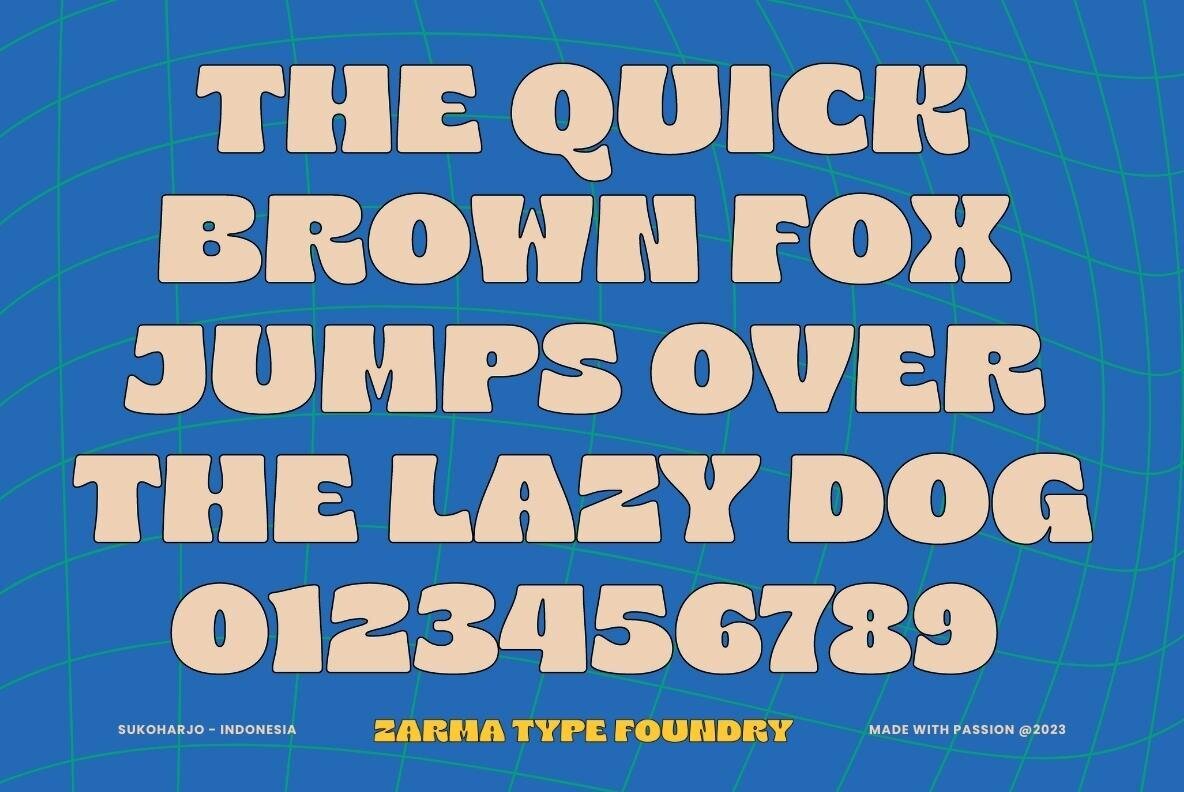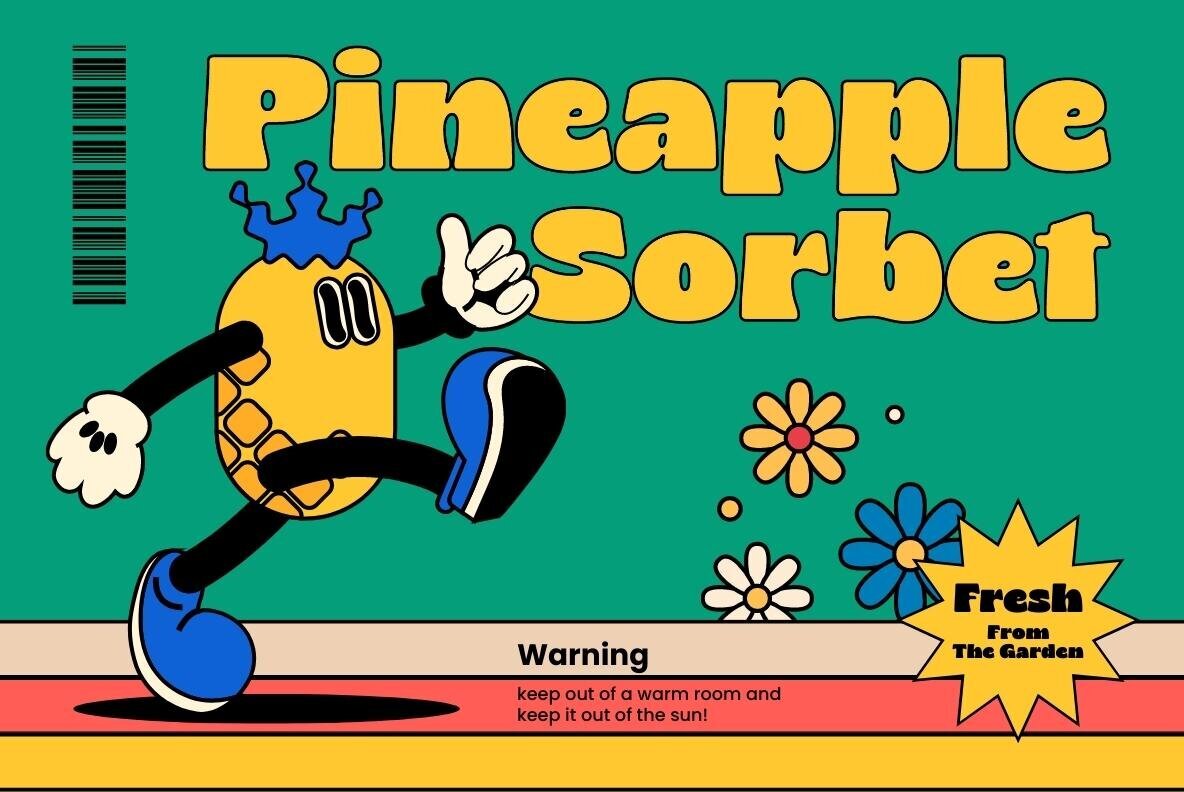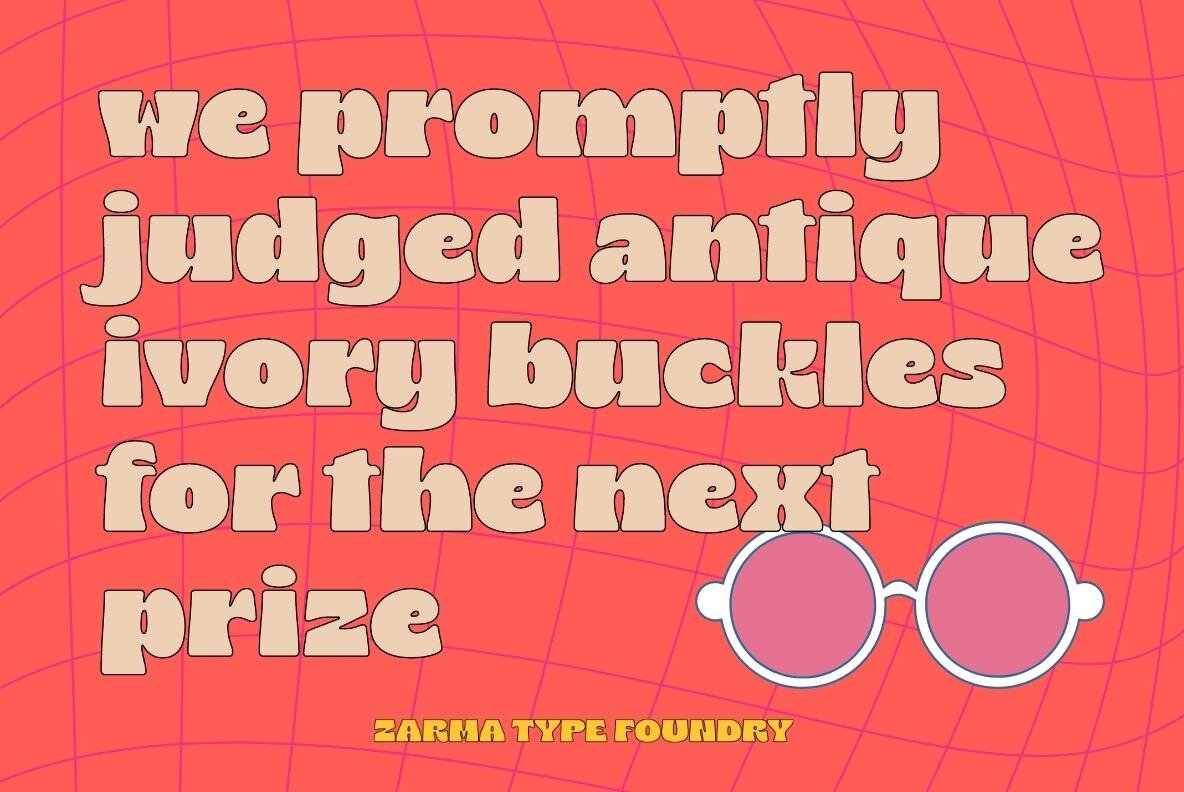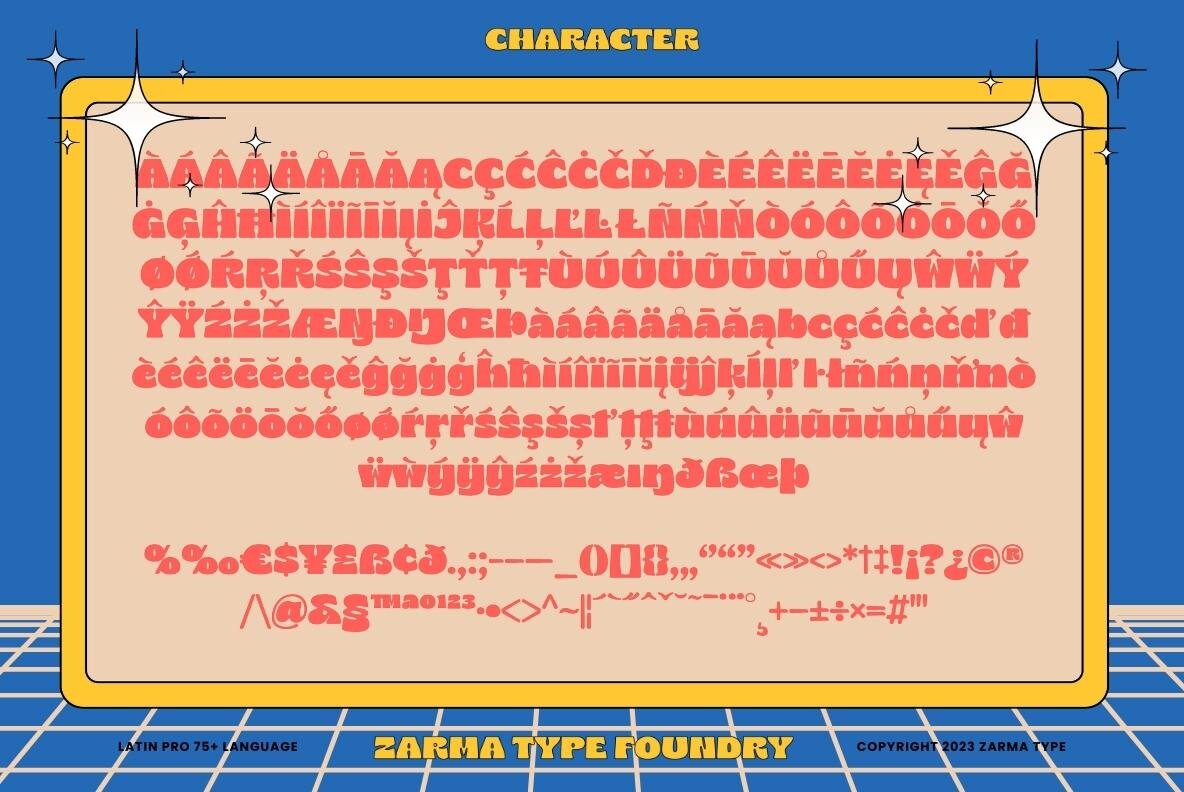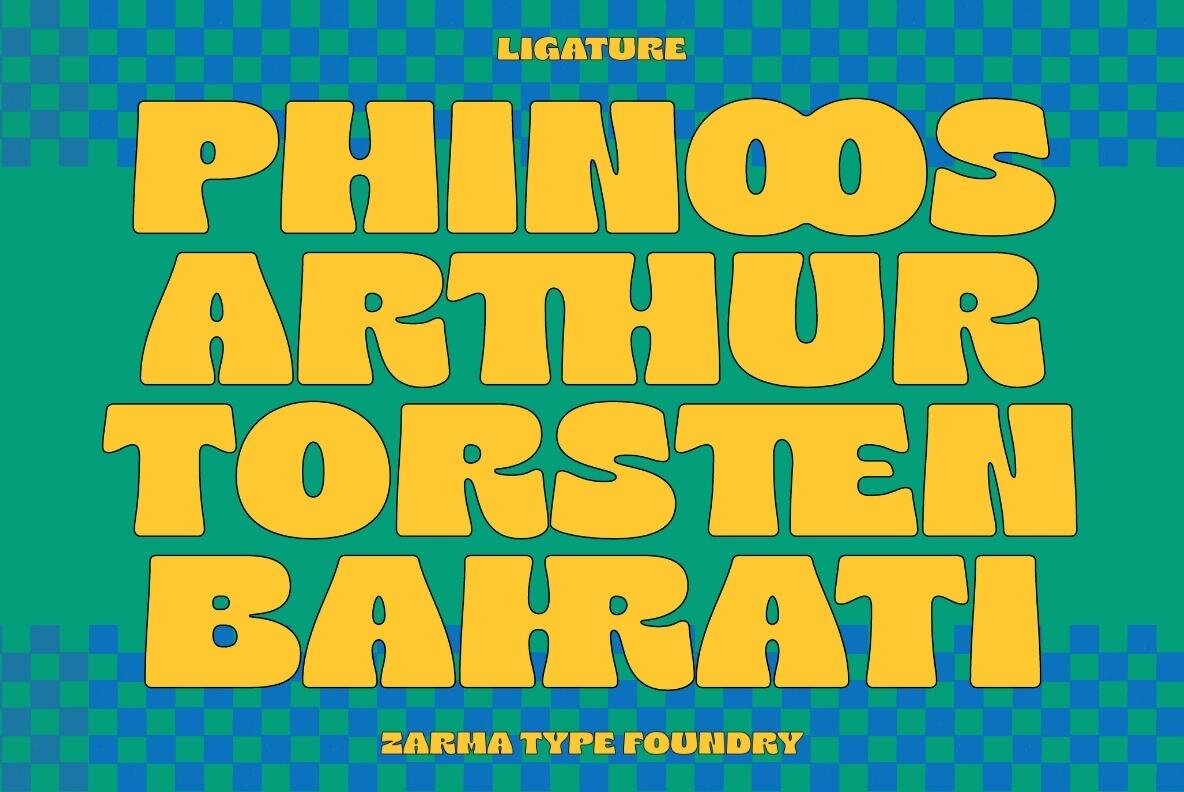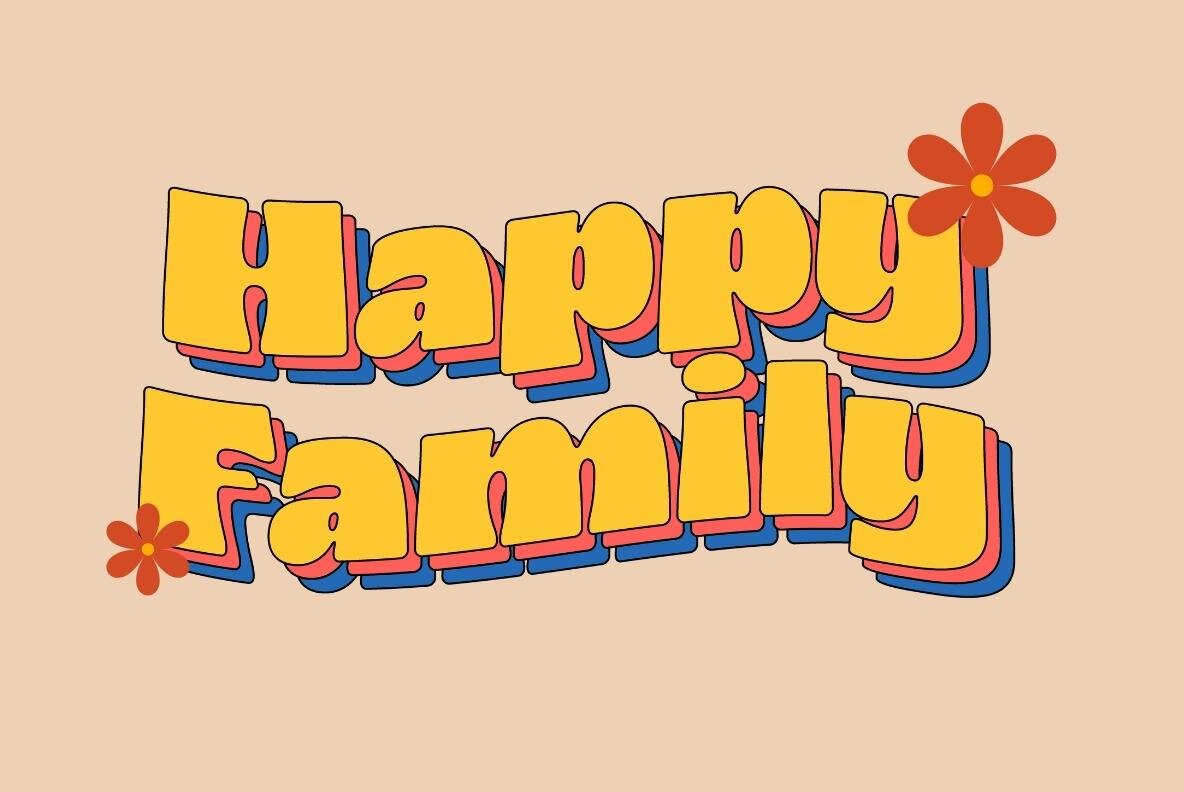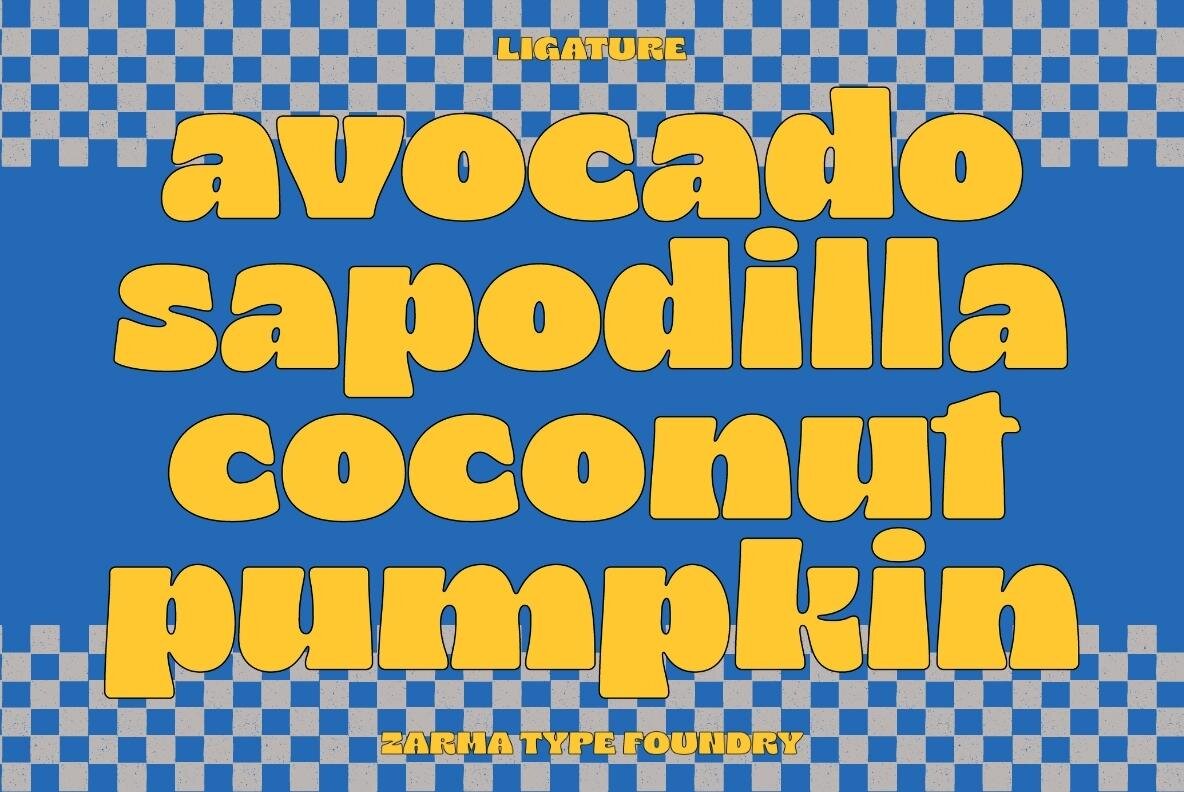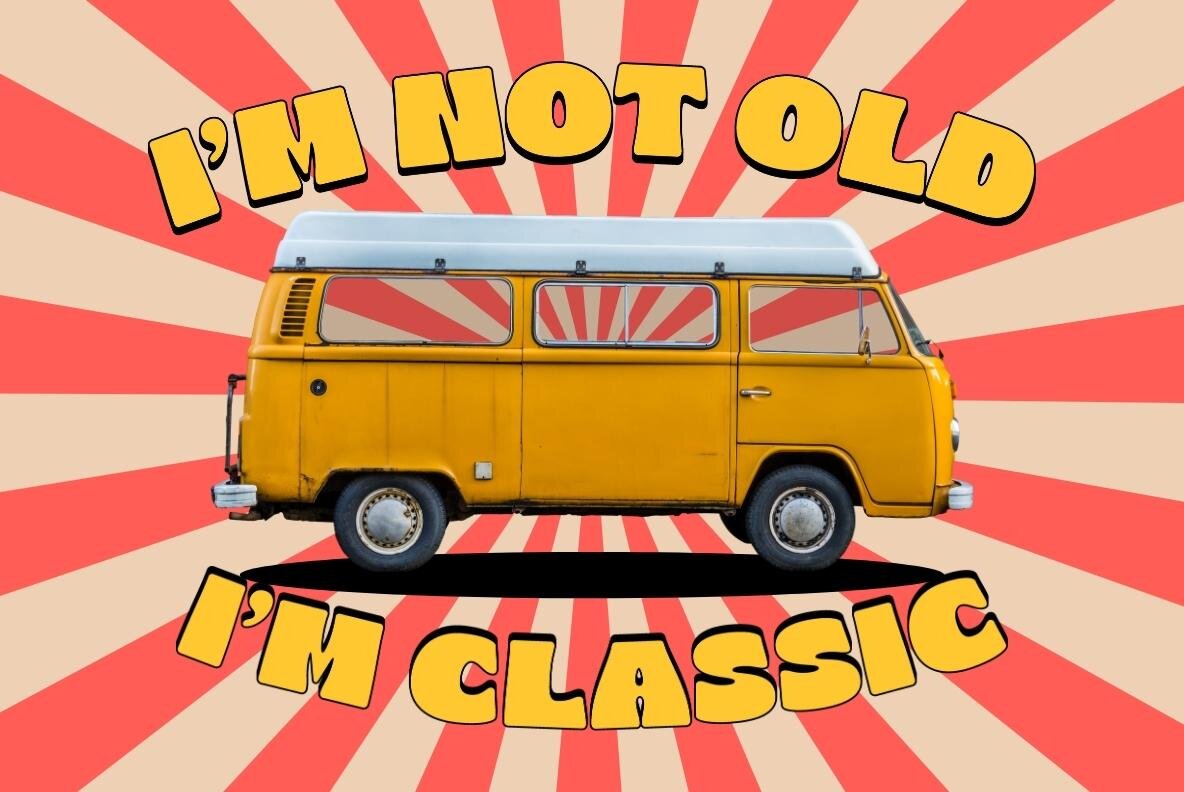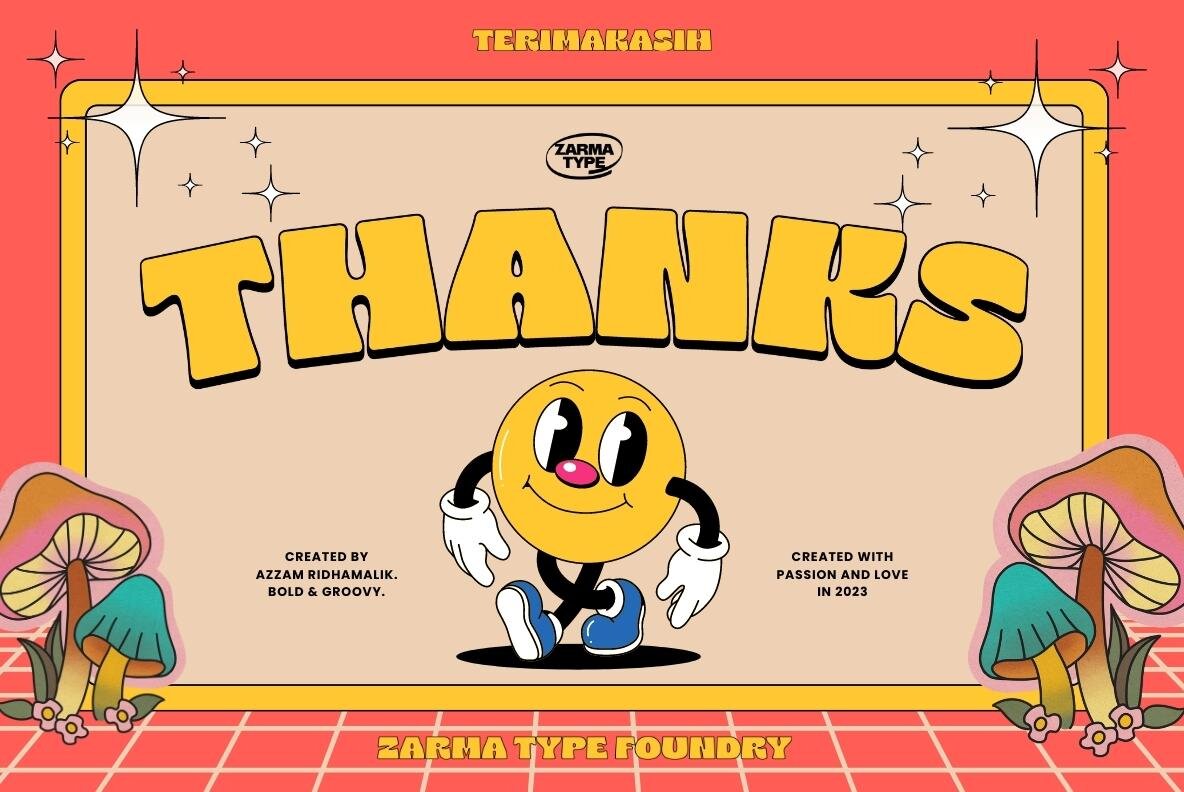
Bilgres Font
Bilgres Regular
Introducing Bilgres, a hippie-themed font that combines strong and gentle shapes with rounded edges, giving it a unique and playful style. This bold and wide font is perfect for creating eye-catching designs that stand out, whether you're designing posters, album covers, logos, or social media graphics. With extensive multilingual character support, including Latin Pro, Bilgres is versatile and adaptable to all your design needs.